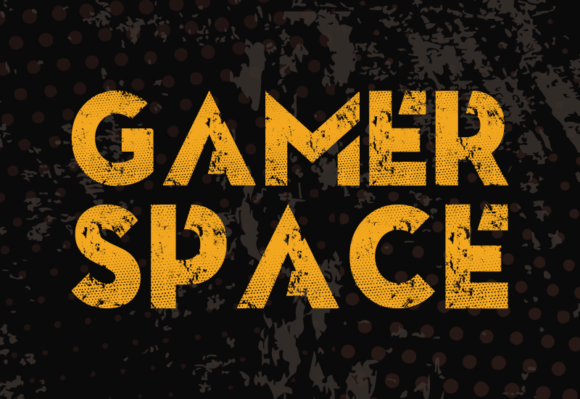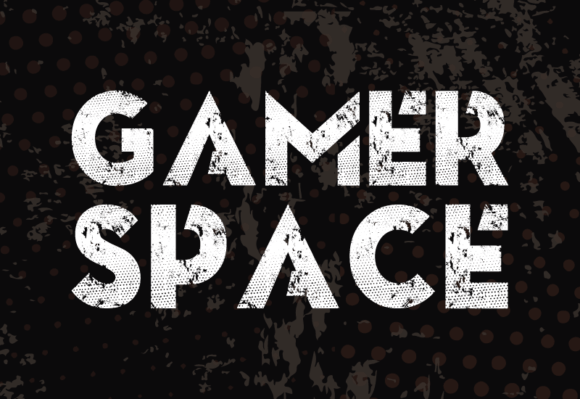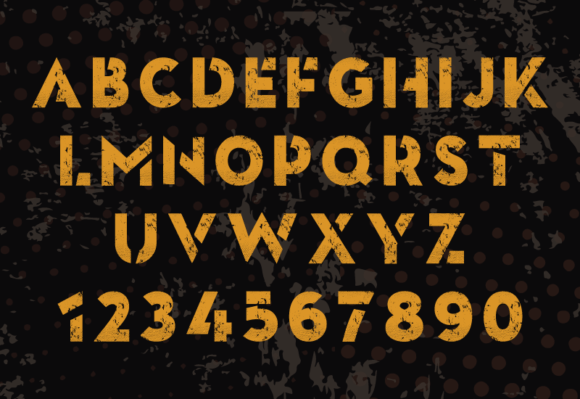
Gamer Space Font
Unveiling Gamer Space is a truly unique, sans-serif font that breaks the mold. With its bold, unfiltered design language, Gamer Space announces itself on every canvas with undeniable assertiveness. Steeped in an edgy, worn-in aesthetic, its rough-hewn lines breathe defiance and resilience. This font gifts a rebellious allure to gaming projects and more, daring to push the boundaries of typographic design.